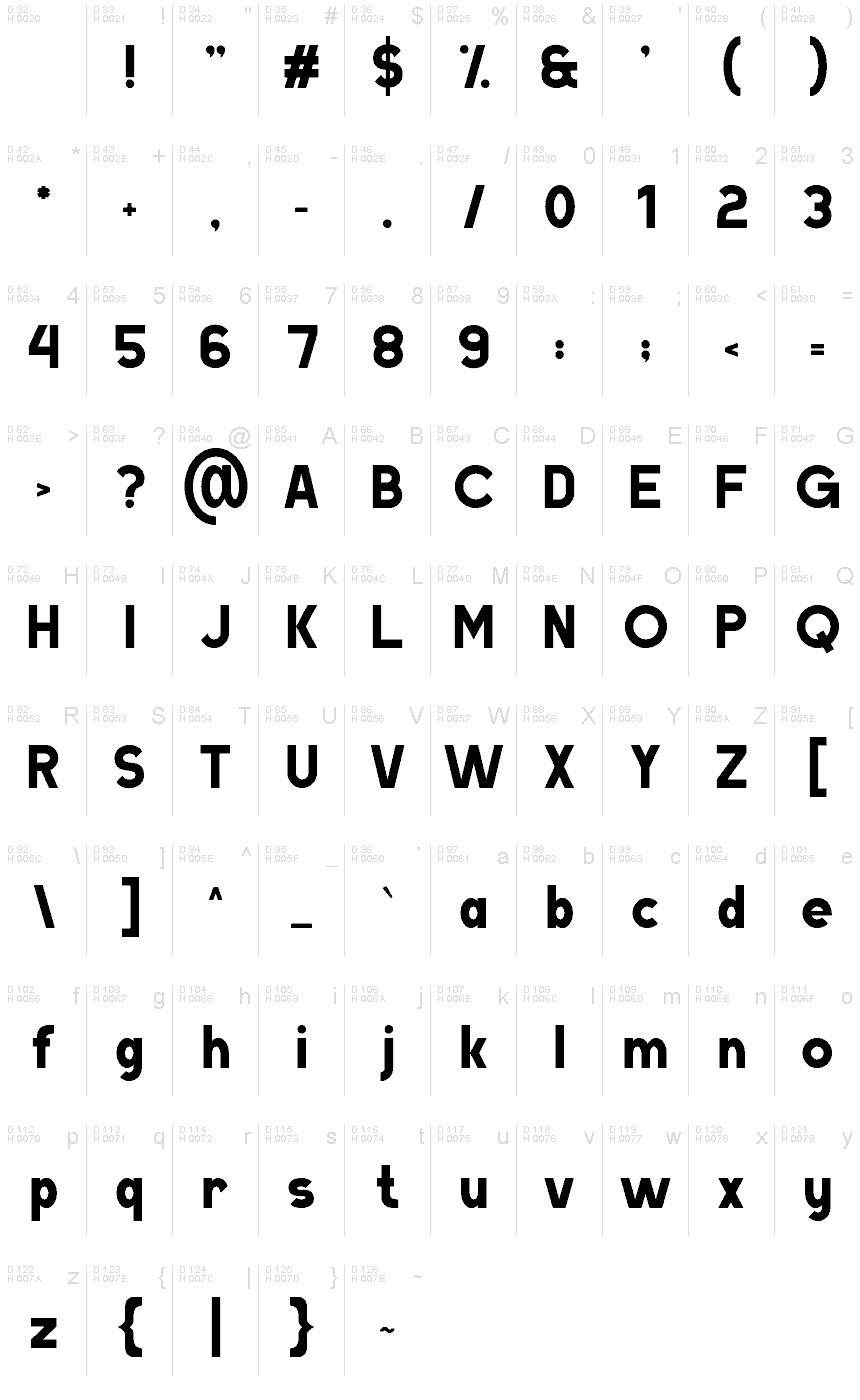
HURDEI
Hurdei font by Gilang Ternadho is a geometric sans serif featuring medium lowercase set with sporadic uniqueness within some characters. Its minimalist design and careful balancing between clean lines and curves make it an appealing unique typeface. The modern and structured appearance of this graphic resource enhances its versatility in a noticeable way.
Use Hurdei for websites, landing pages, print magazines, posters, flyers, infographics, app interfaces, book front covers and page interiors as well. The free font can also go to product designs like packaging items and labels or logo designs along with branding stationery kits as well.